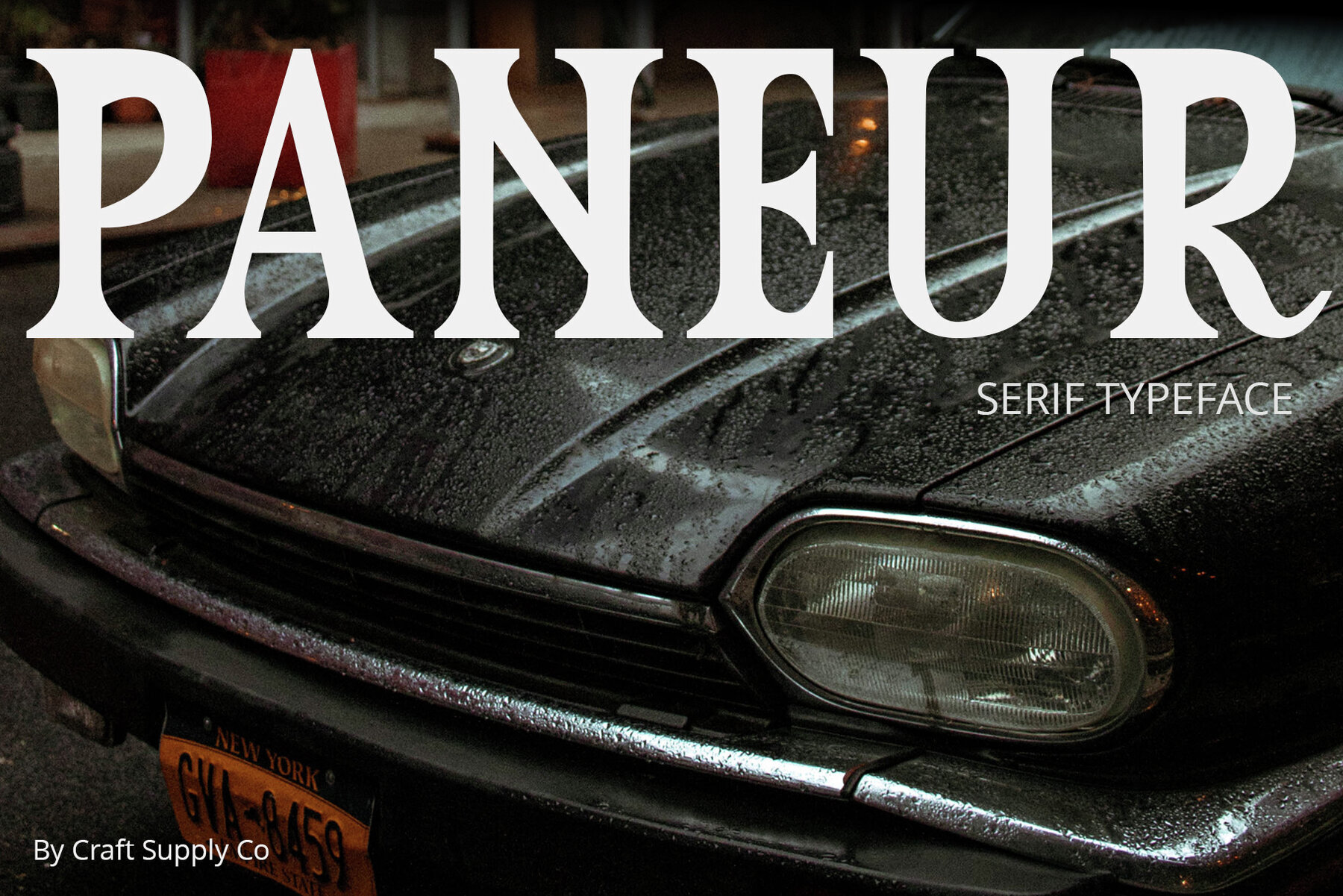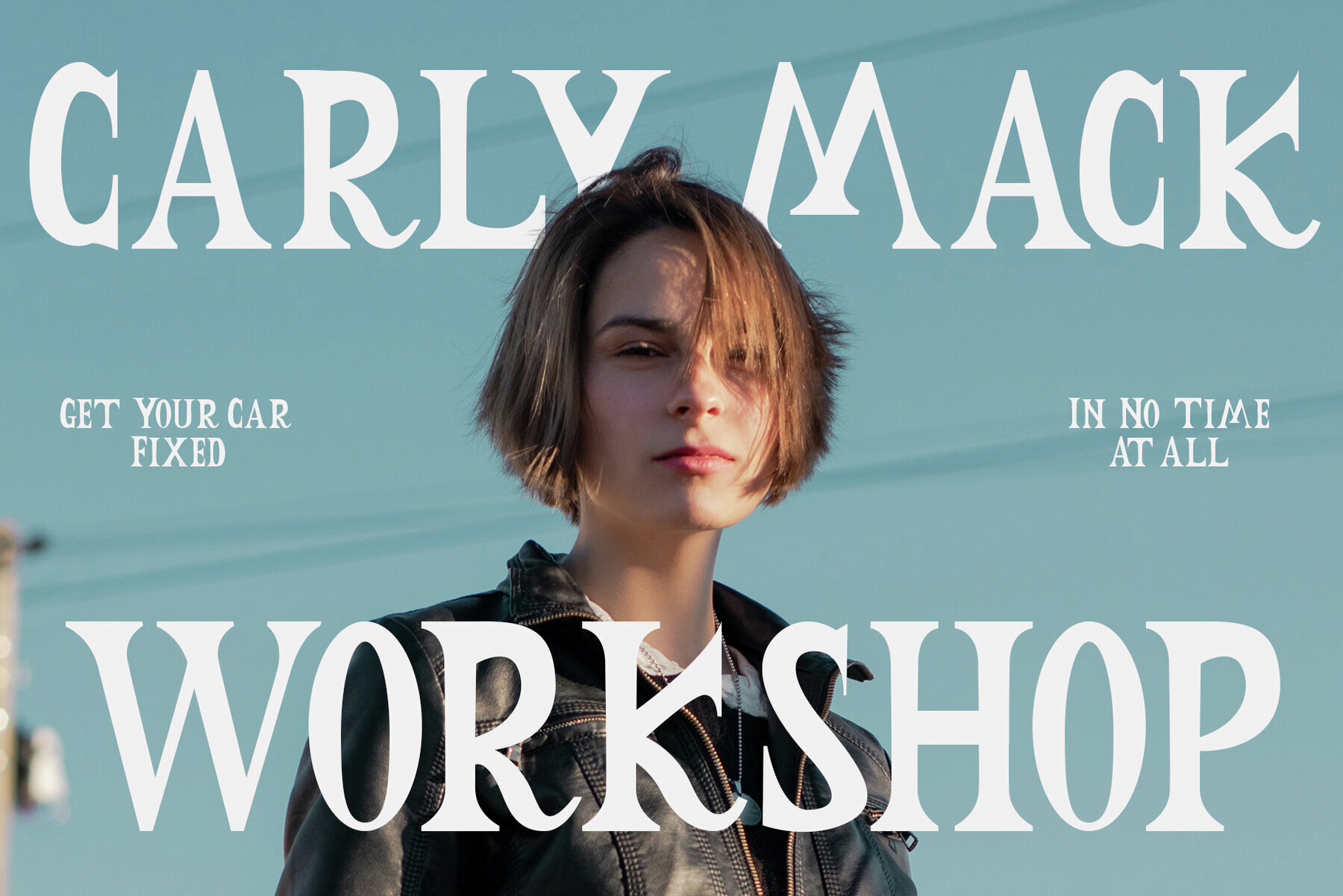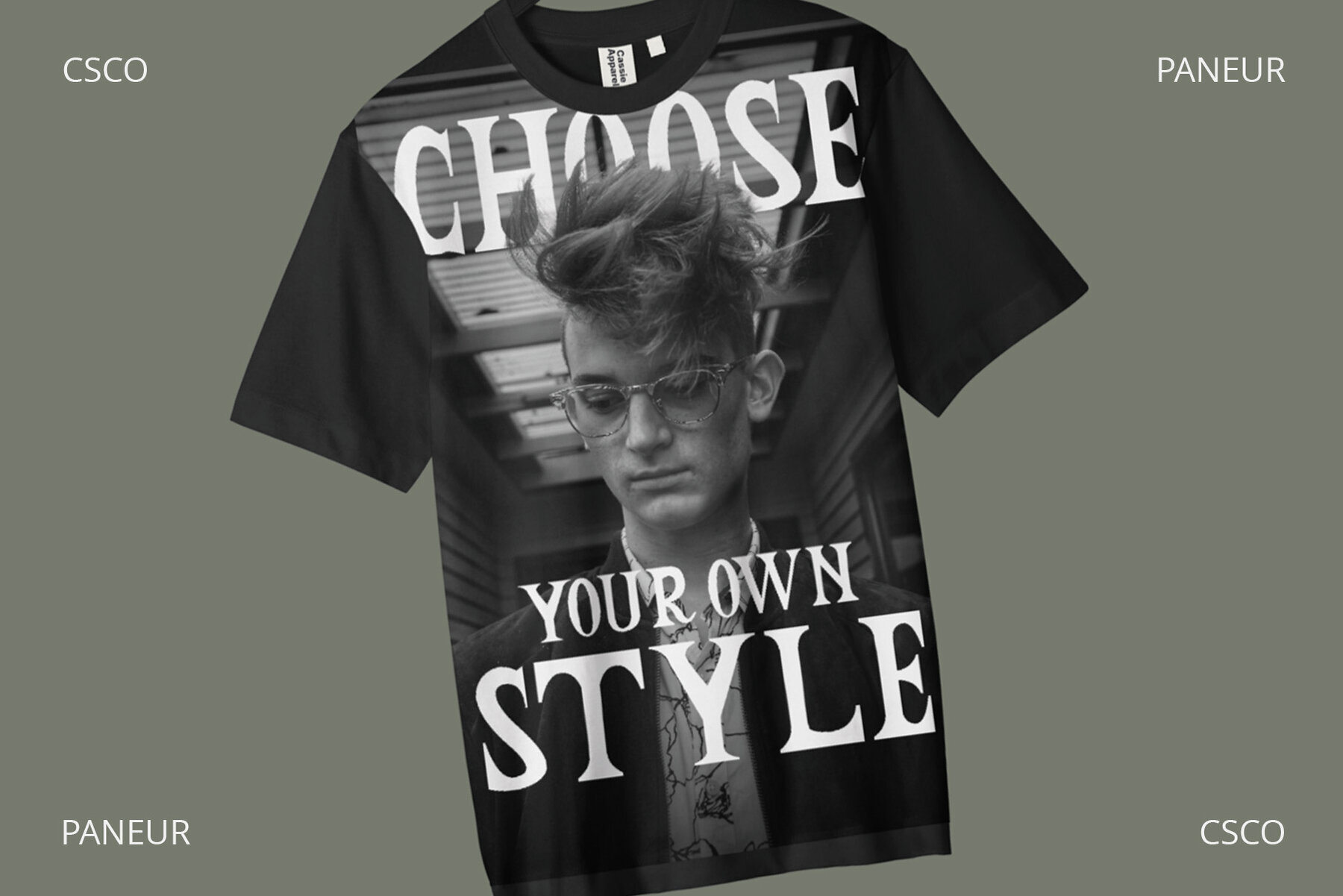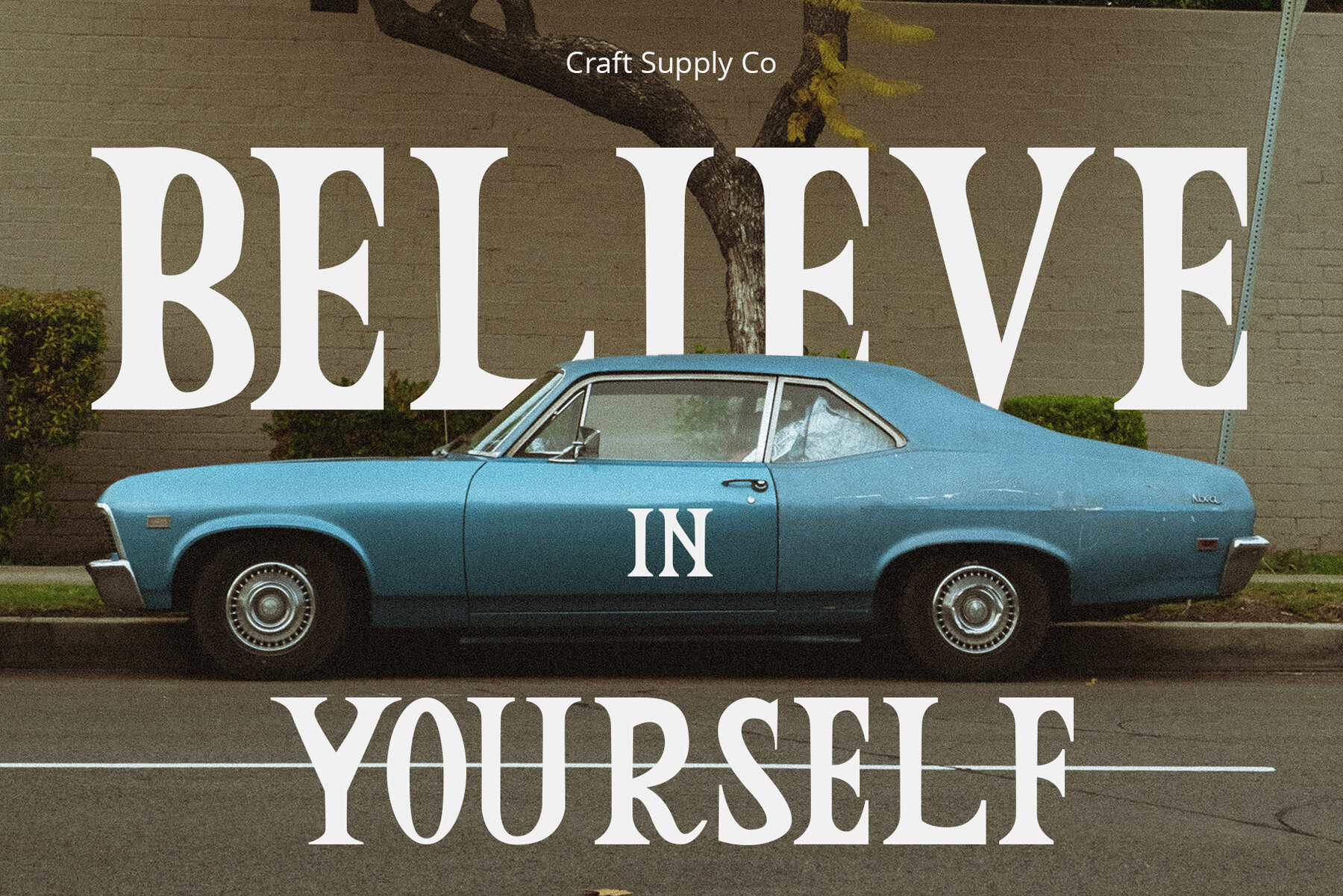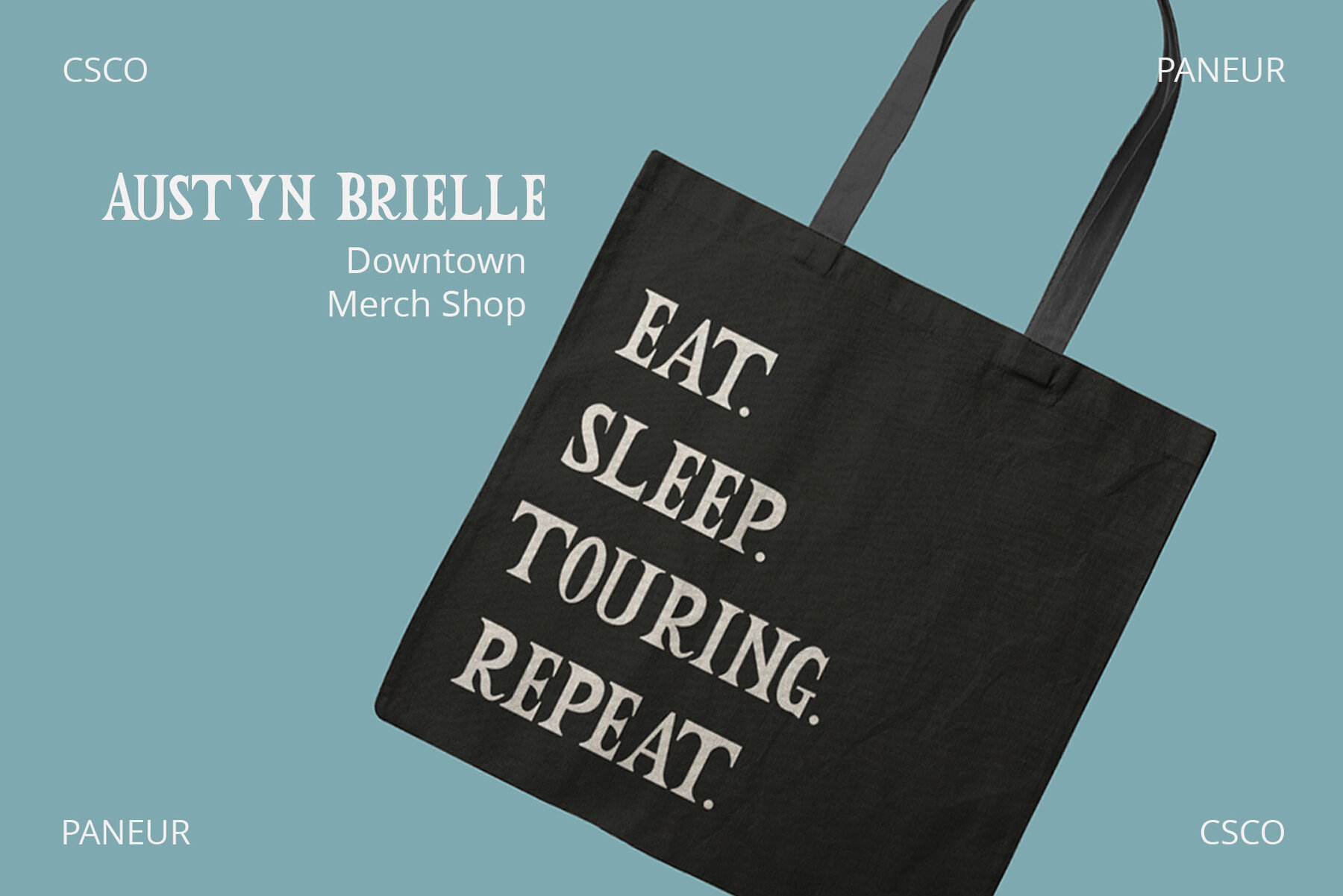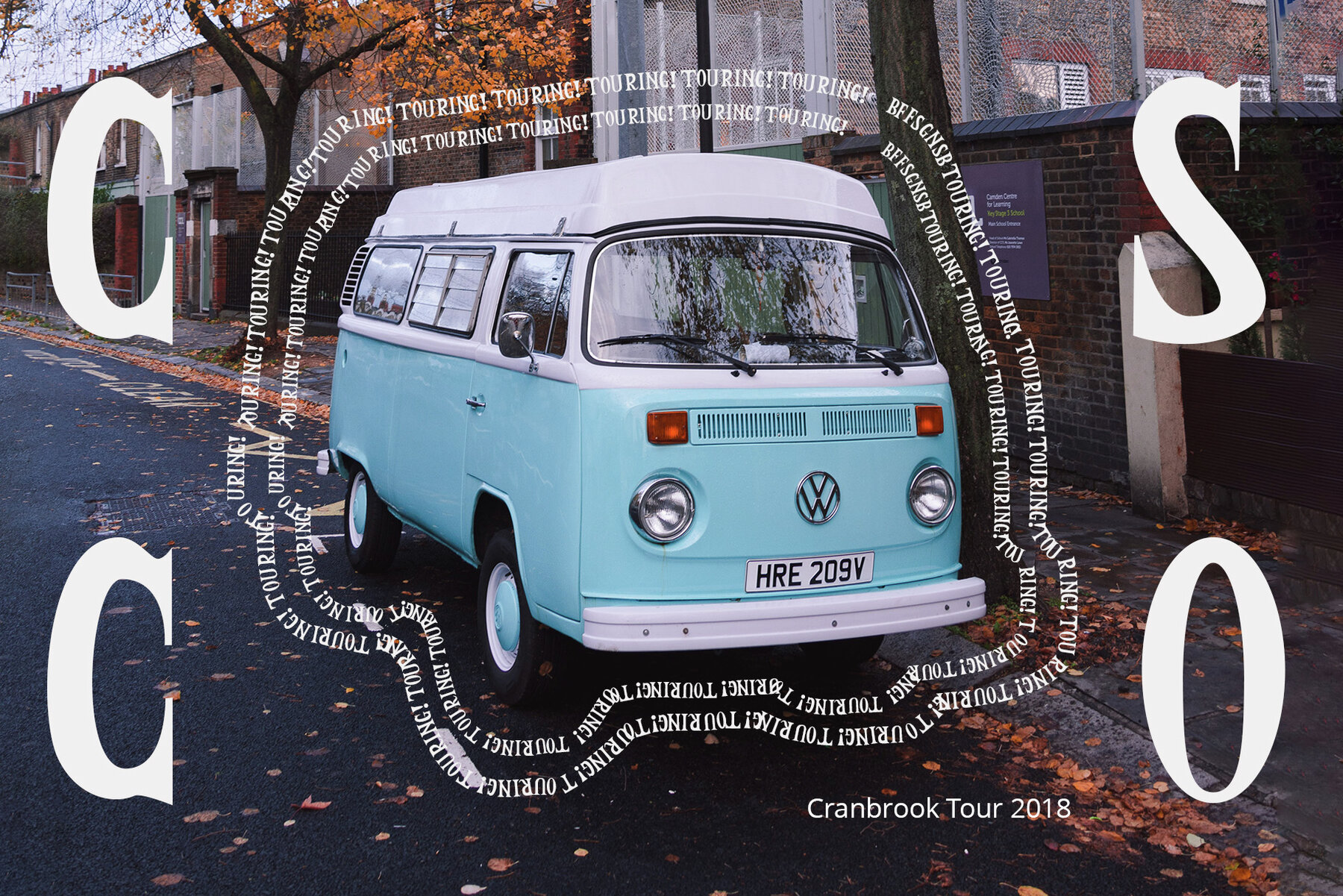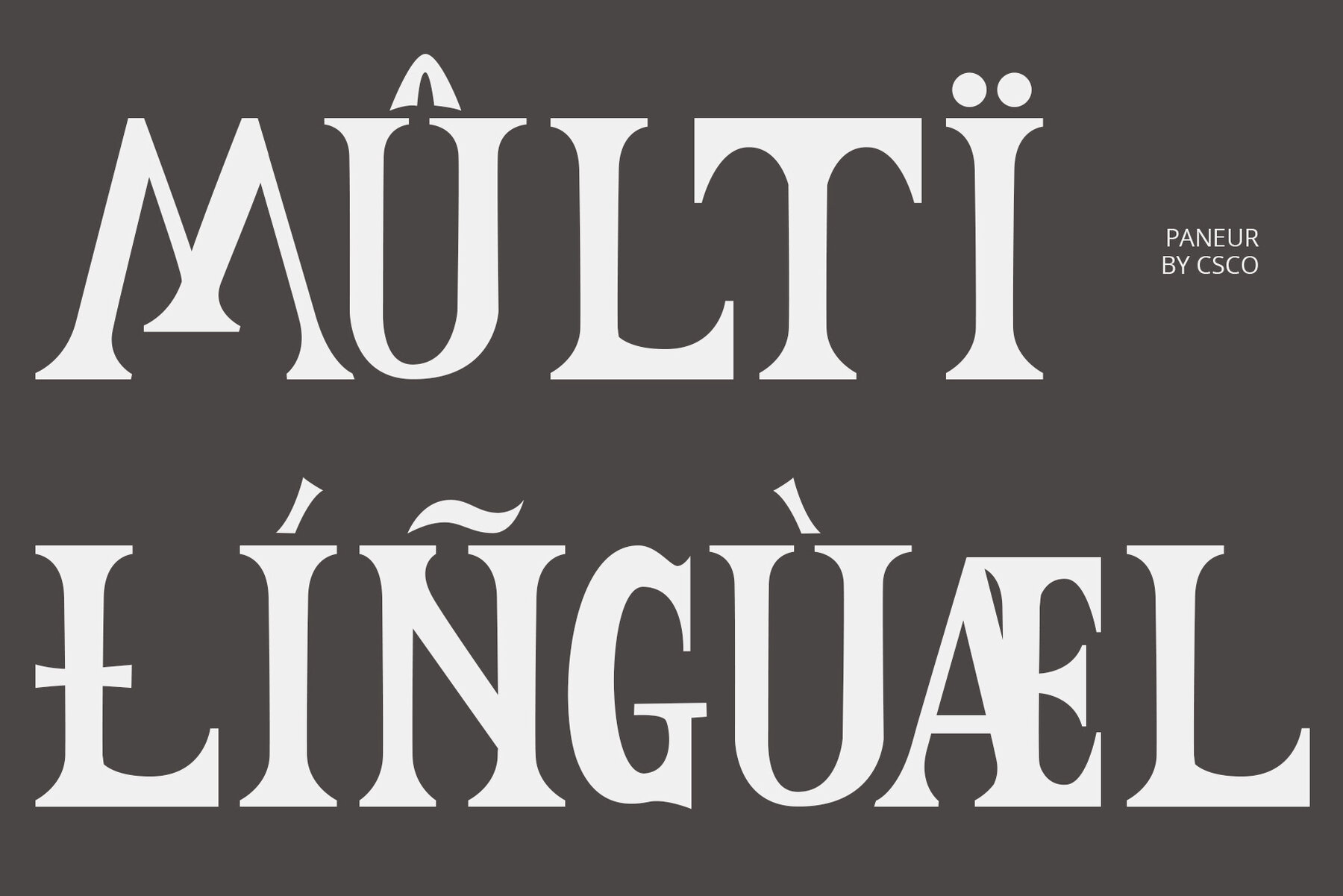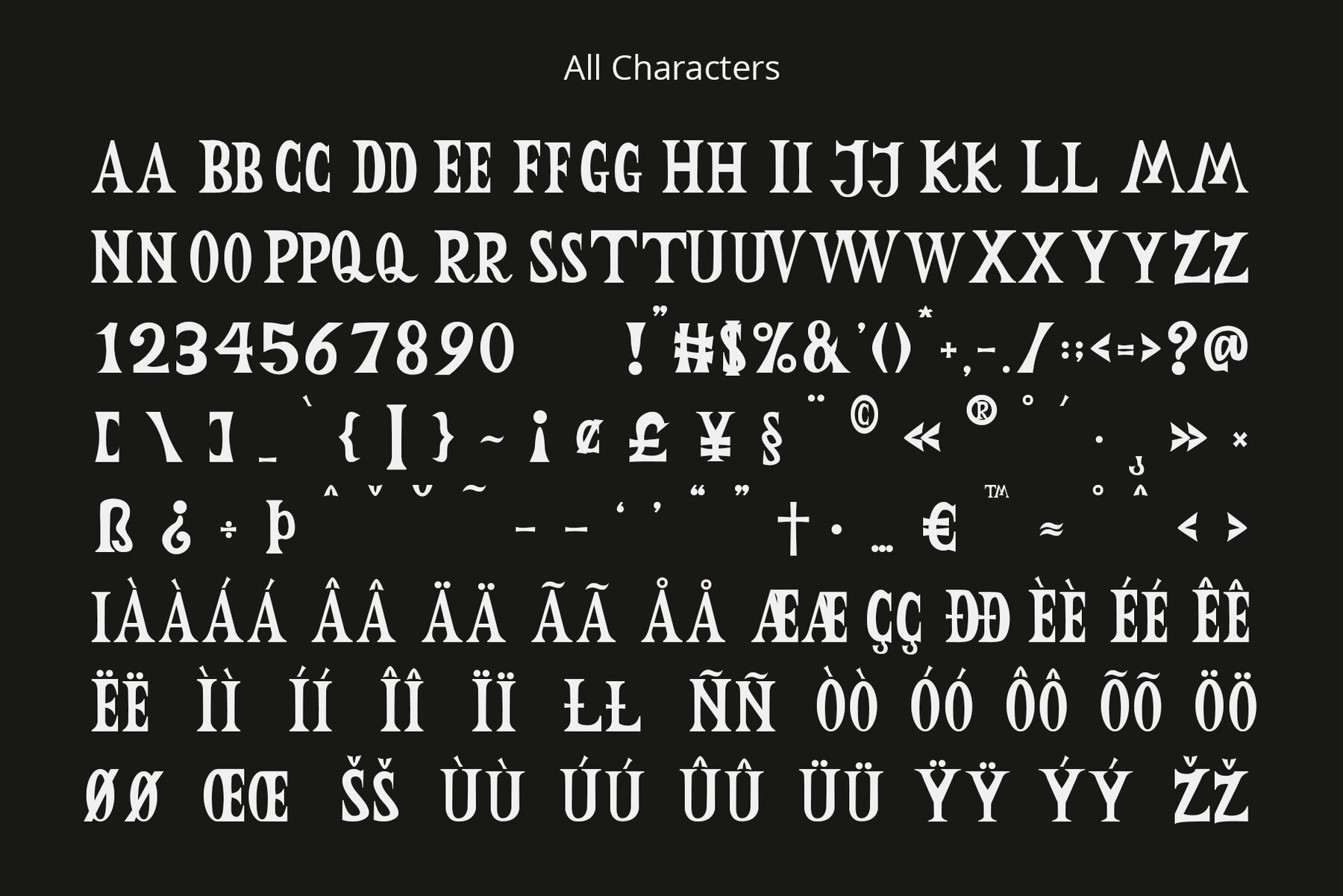
Paneur Font
Paneur Regular
Paneur is a serif typeface that brings a delightful touch of playfulness to traditional design. It offers a fresh perspective on serifs by infusing them with creativity and informality. This typeface stands out for its unique approach to serif design, steering clear of typical formal conventions. Paneur features informal strokes that add an expressive flair to your projects, making it ideal for those looking to escape the formality usually associated with conventional serifs. What truly sets Paneur apart is its ability to offer endless expressivity. Perfect for breaking the monotony in design, it infuses projects with invigorating energy and a dynamic spirit.Paneur: An Expressive Serif Typeface
Serif Playfulness
Informal Strokes
Endless Expressivity